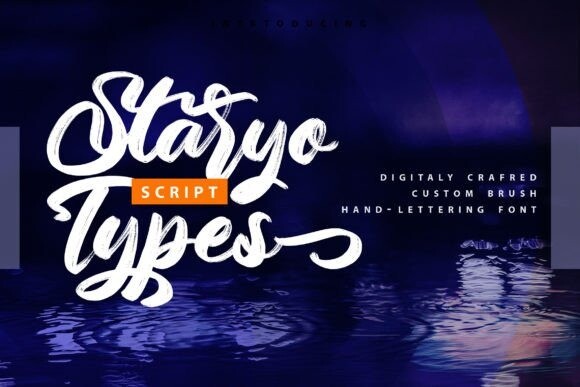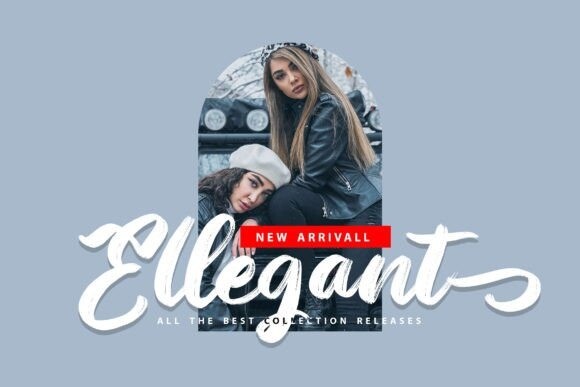
Staryo Types Font
Staryo Types is a digitally brushed script font with a calligraphy style. It will look so beautiful on invitations like greeting cards, branding materials, business cards, quotes, posters, and more!